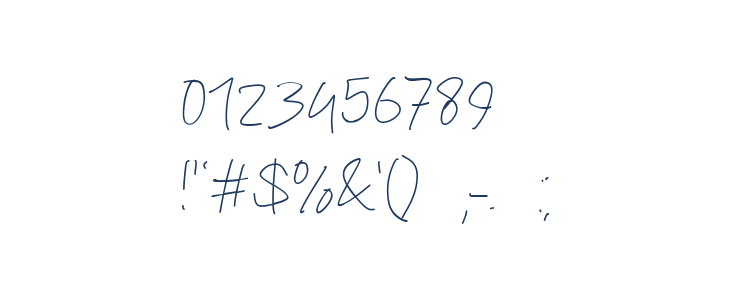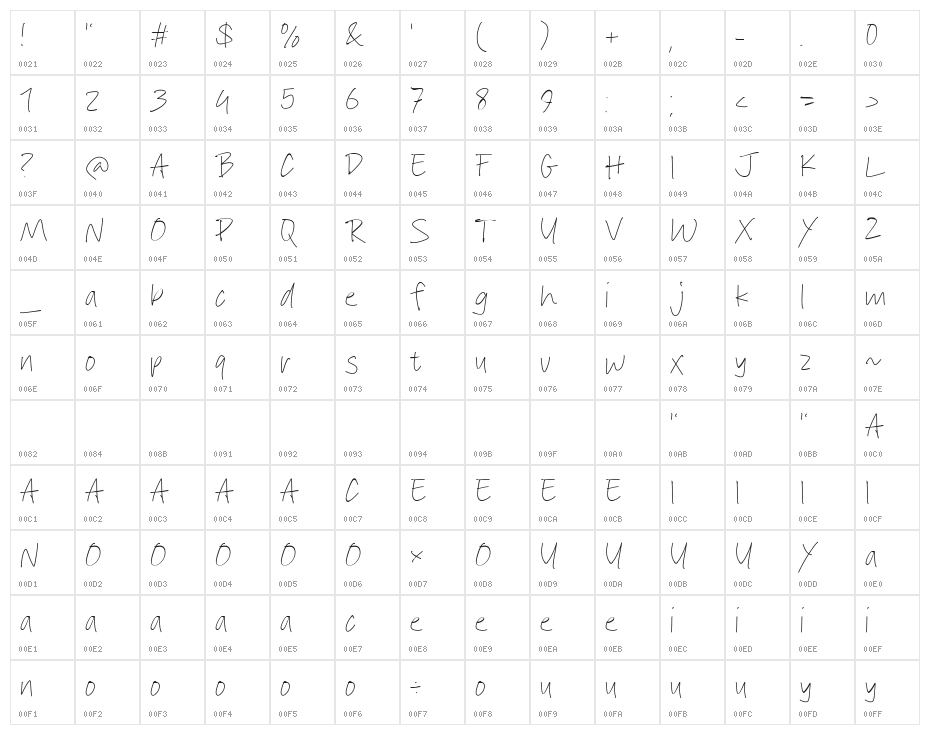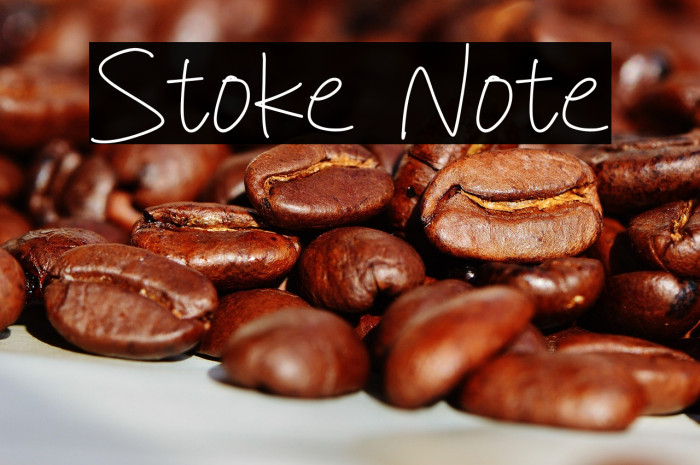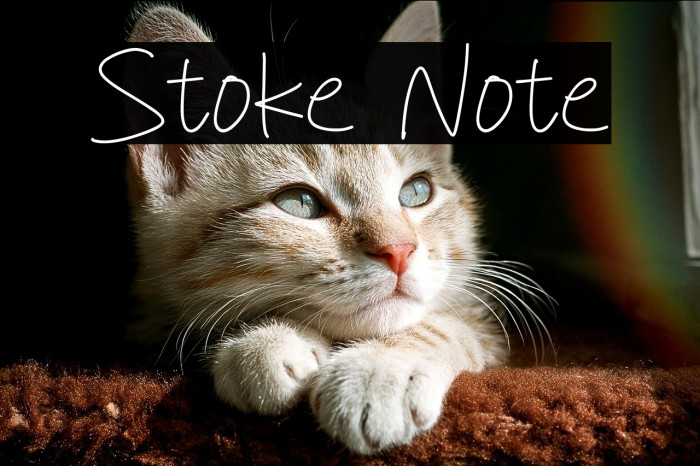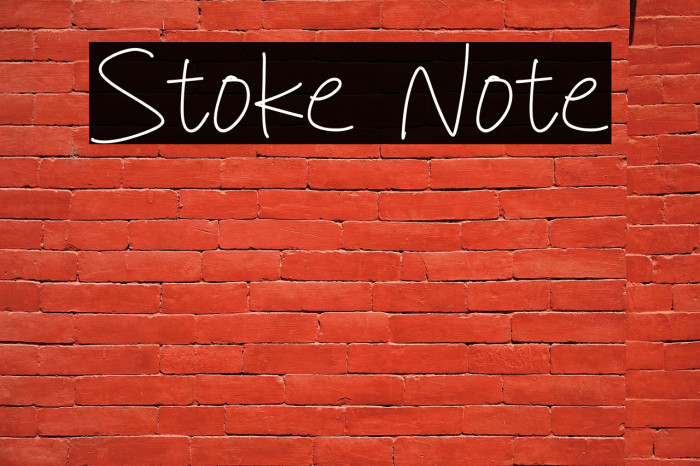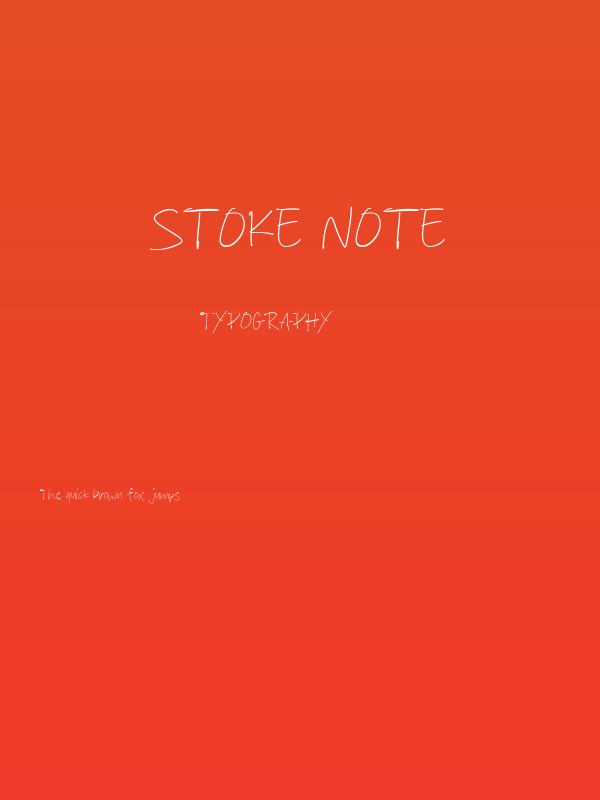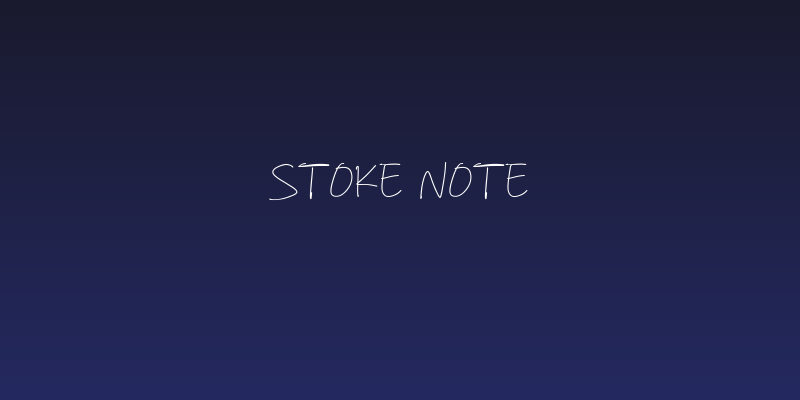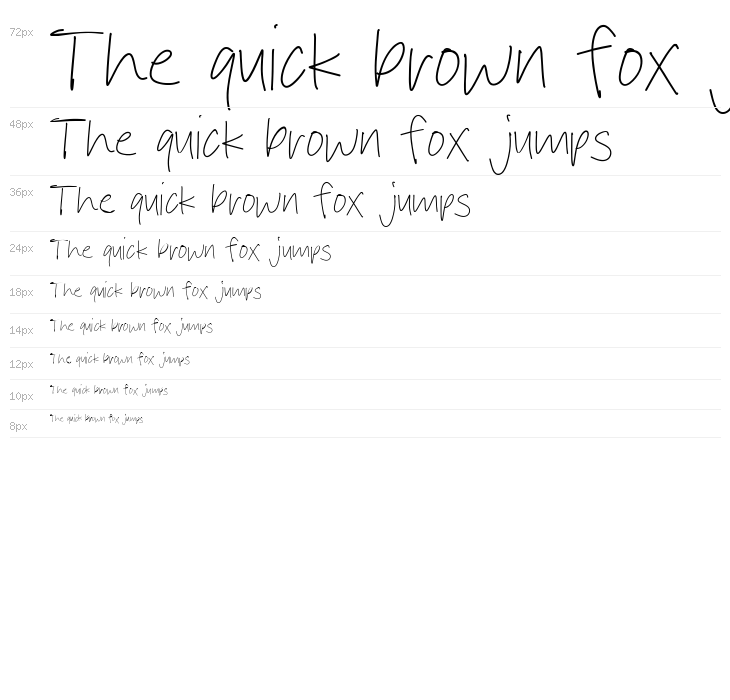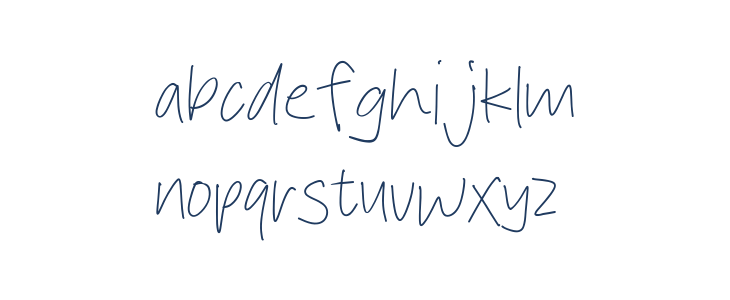
Stoke Note Font
Stoke Note Description
This font exudes a casual and handwritten style, characterized by its fluid and natural strokes that mimic the appearance of penmanship. The letters are slightly irregular, adding a personal touch and warmth to the text. The uppercase and lowercase letters maintain a consistent style, with smooth curves and a slight slant that enhances its informal look. The numerals and special characters are crafted with the same attention to detail, ensuring uniformity across all glyphs. This font is perfect for projects that require a personal, approachable, and friendly feel.
| Overall Style | Casual |
| Use Case | Logos, Invitations, Personal notes |
| Proposed Projects | Ideal for personal notes, invitations, greeting cards, and informal branding. |